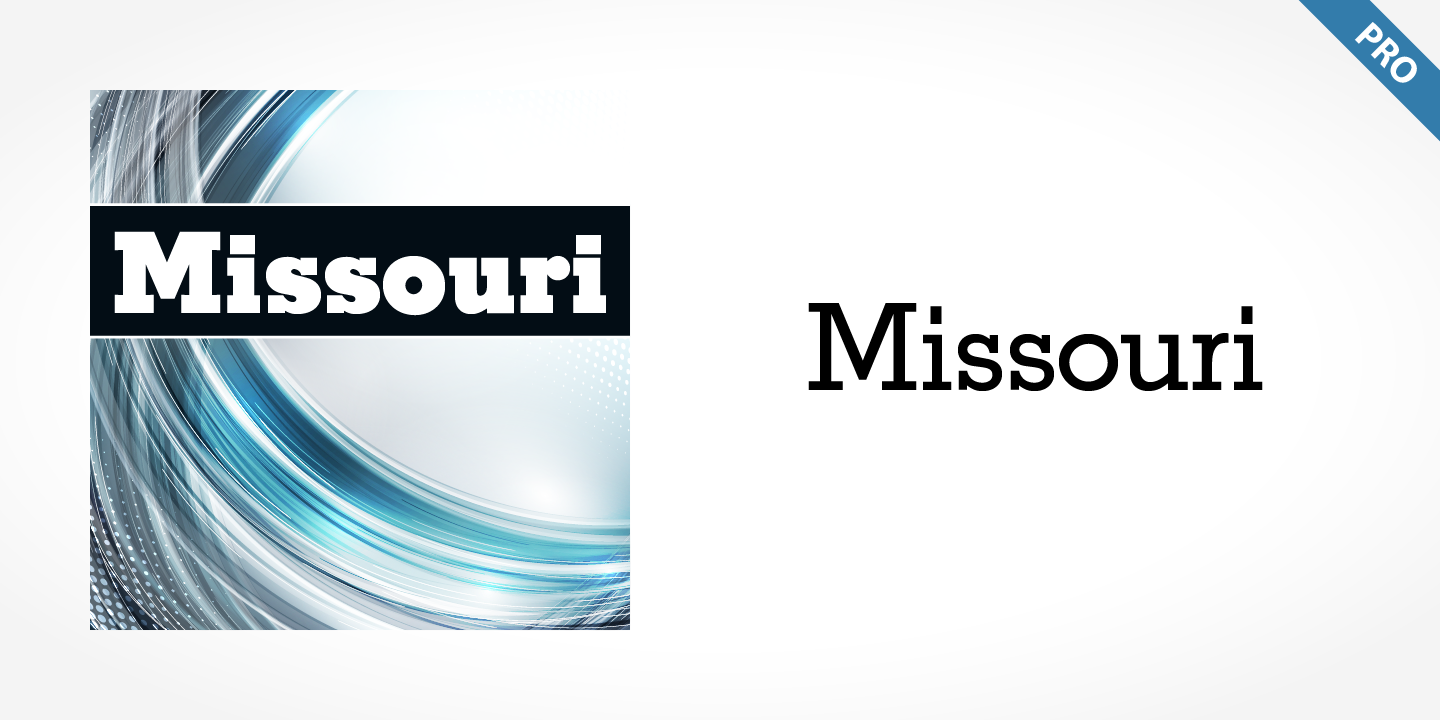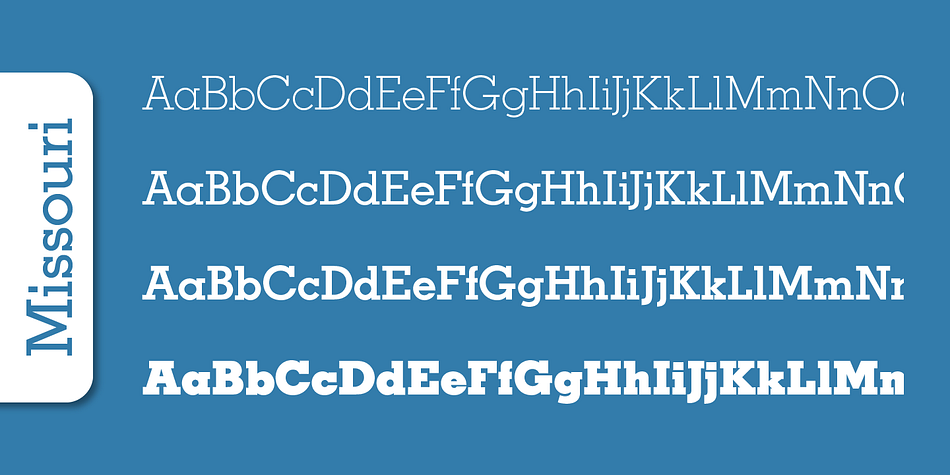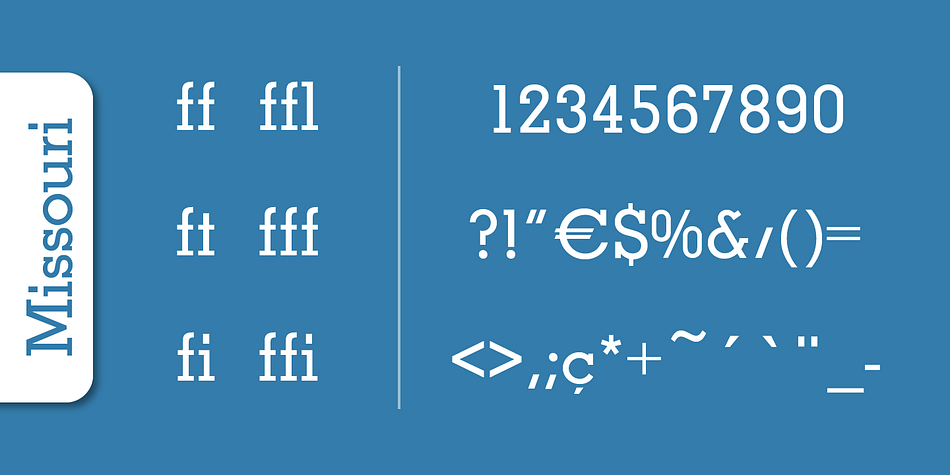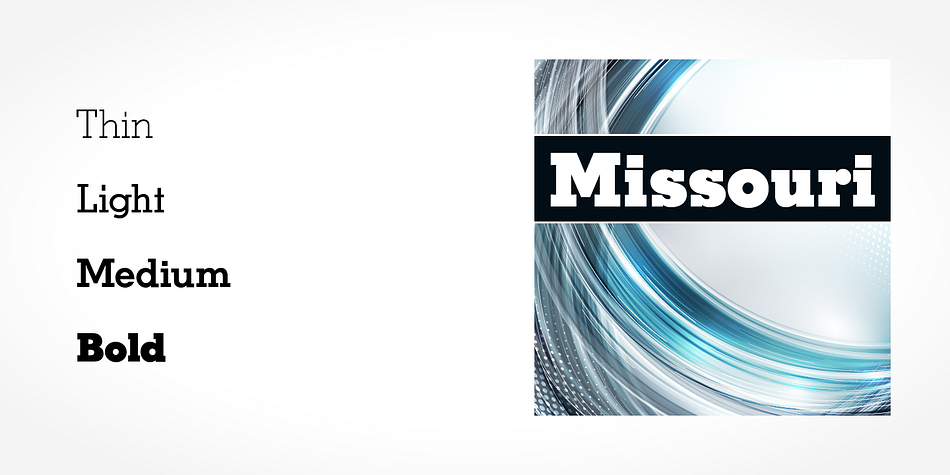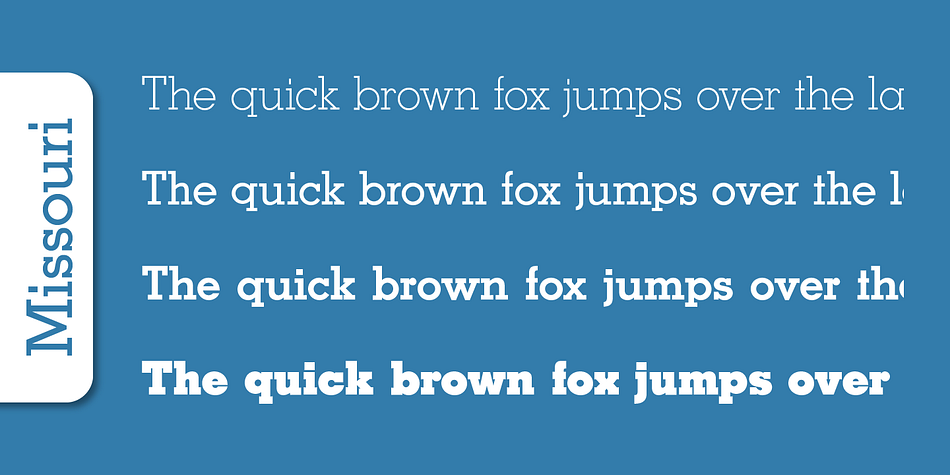
Missouri Pro
Missouri Pro is a slab serif font family. This typeface has four styles and was published by SoftMaker.
Because of the geometric basis of its forms, Missouri Pro is often thought of as a font for technical fields, making a rational, purposeful impression. This emphasis on objectivity is well-suited to technical texts, but Missouri Pro is appropriate for any text which should exhibit a clear, neutral character. Some weights are available as soft rounded versions.